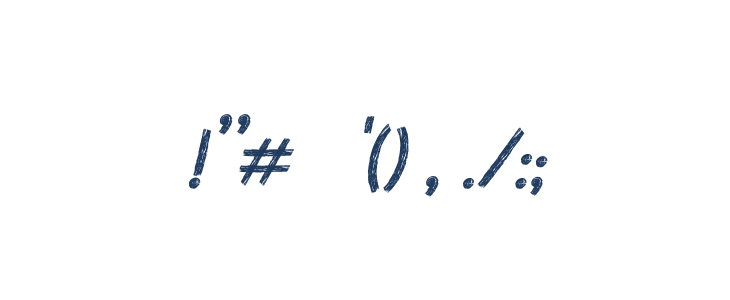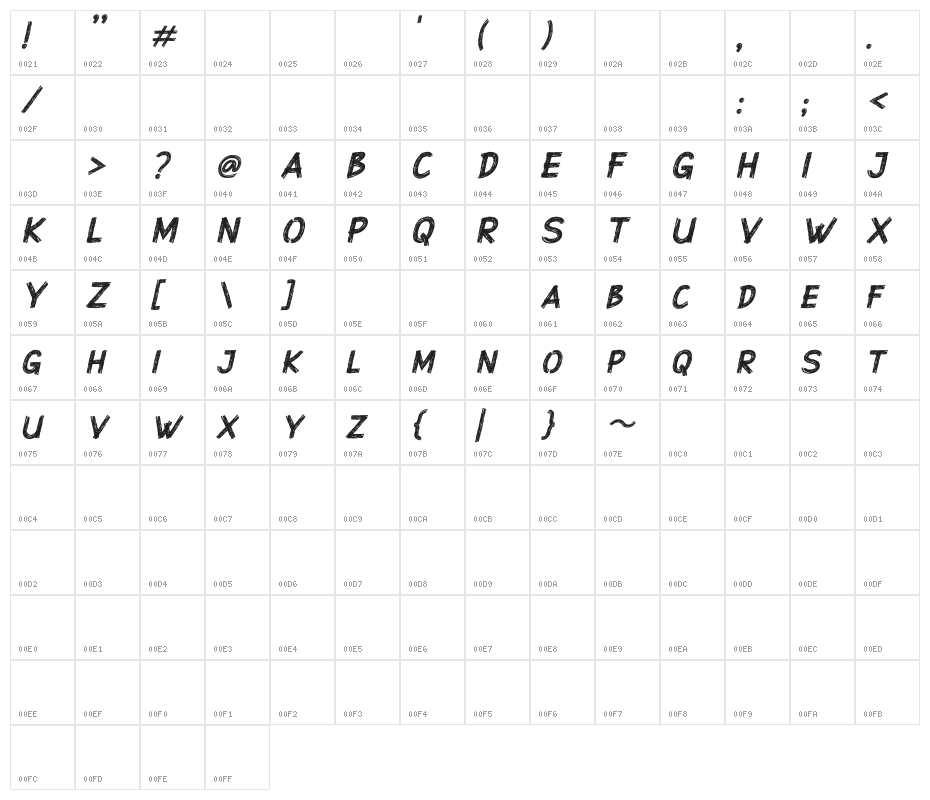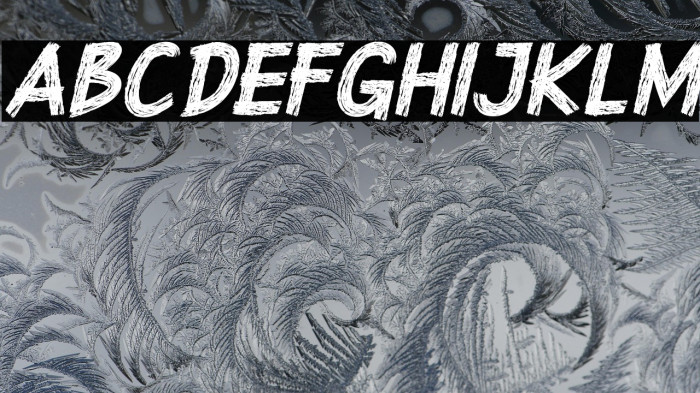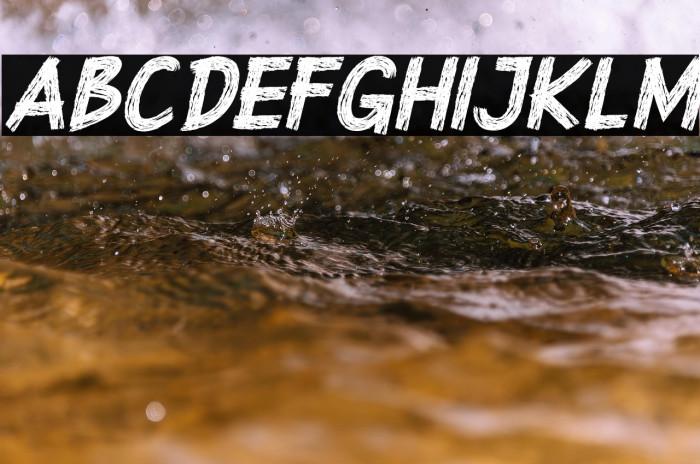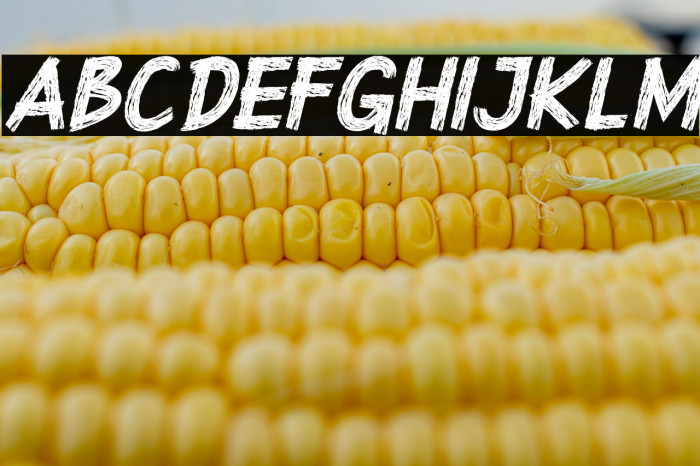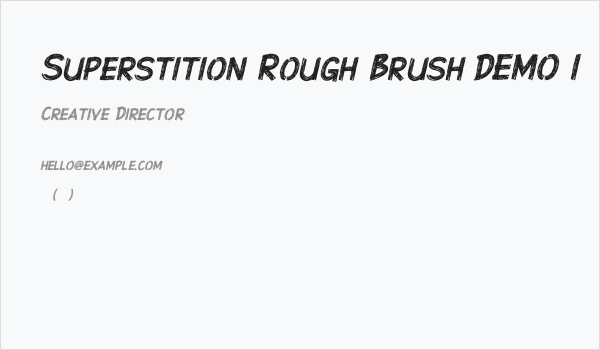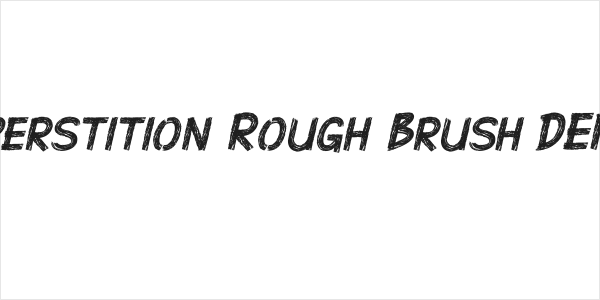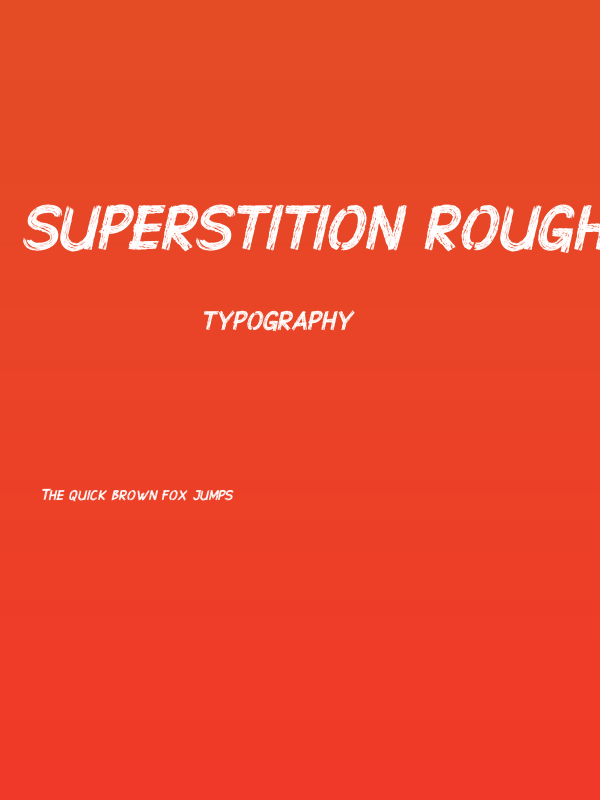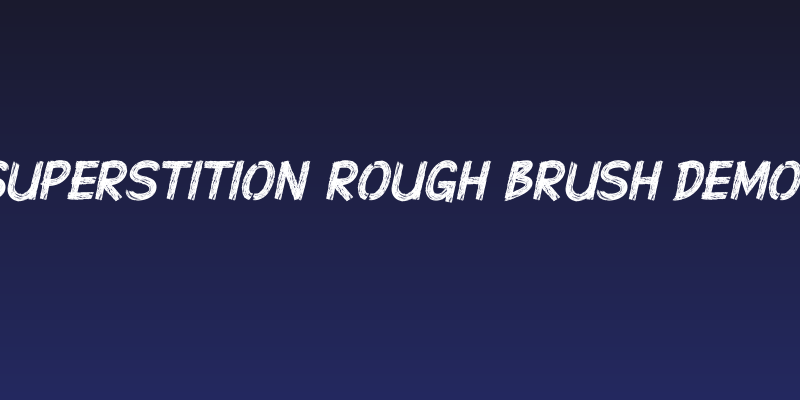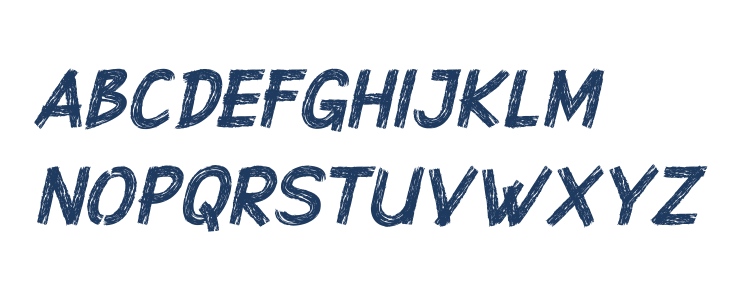
Superstition Rough Brush-DEMO I Font
Superstition Rough Brush-DEMO I Description
This font features a rough, brush-like texture that gives it a dynamic and energetic appearance. The strokes are uneven, mimicking the natural flow of hand-painted letters, which adds a sense of movement and spontaneity. The uppercase and lowercase letters maintain a consistent style, with bold, thick lines that create a strong visual impact. The numbers and special characters are designed with the same brushstroke effect, ensuring uniformity across all elements. This font is ideal for projects that require a bold and artistic touch, such as posters, branding, and creative designs.
| Proposed Projects | Ideal for posters, branding, creative designs, and any project needing an artistic flair. |